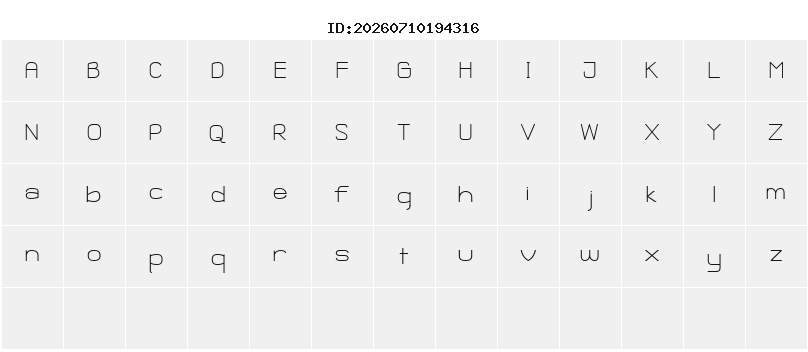
Ganix Apec Preview
• Font Name: Ganix Apec
• Full Font Name: Ganix Apec
About Ganix Apec.ttf
Ganix Apec.ttf is a modern, elegant sans-serif font designed for ultimate readability and visual harmony. Perfect for branding, headlines, web design, and print materials.